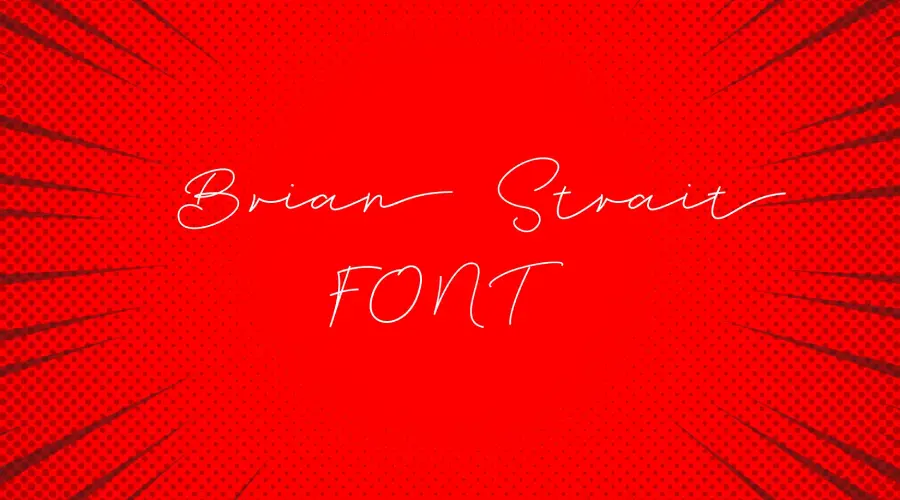
Brian Strait Font
Brian Strait Font is a magnificent Script and Handwritten typeface is now available. Mas Anis created it and shared it. Brian Strait is a classic and simple typeface with OpenType features, including stylistic alternates, initial and final forms, and ligatures. The attractive script and Handwritten font are available in two formats: TTF and OFT. The Font is compatible with Windows, Apple/Mac, Linux, Cricut, Silhouette, and other cutting machines.
This font is ideal for use as a watermark on photographs, fashion catalogs, modern lookbooks, signature logos, quotes, record covers, and business cards, among other things. The typeface is an excellent choice for all types of logos. It looks better in italic design; therefore that’s where you should try it. Brian Strait Font Download now.